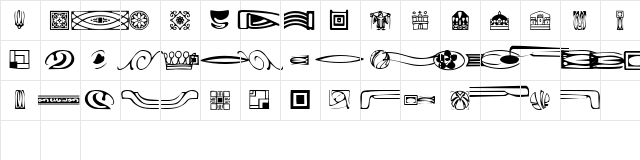
GriffinOne Plain
Design Context for GriffinOne Typeface
GriffinOne is a composed and adaptable typeface that performs quietly and consistently across a wide range of design contexts.